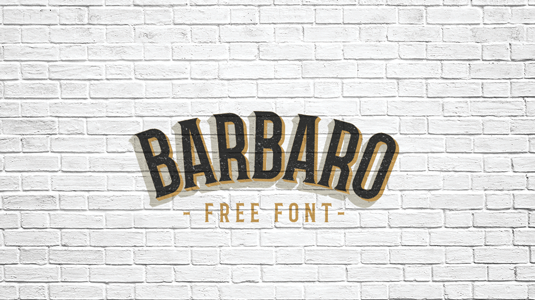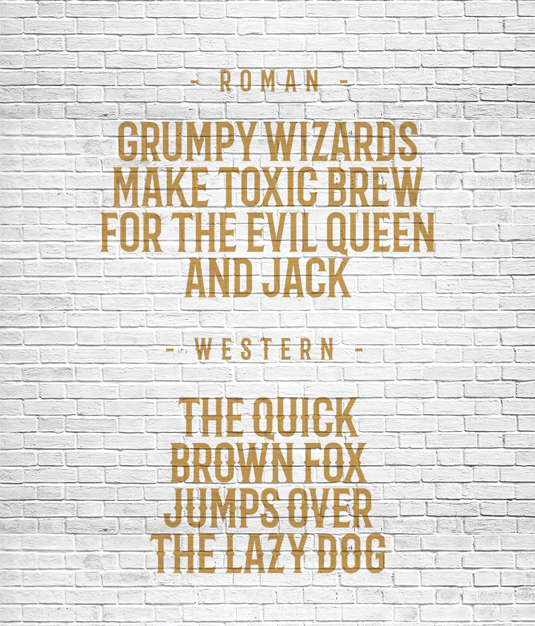
Font of the day: Barbaro
Barbaro by Iván Núñez
Art director Iván Núñez is the man behnd today's font of choice, Barbaro. A beautiful vintage-style display typeface, Barbaro is perfect for signage, posters, logos and more.